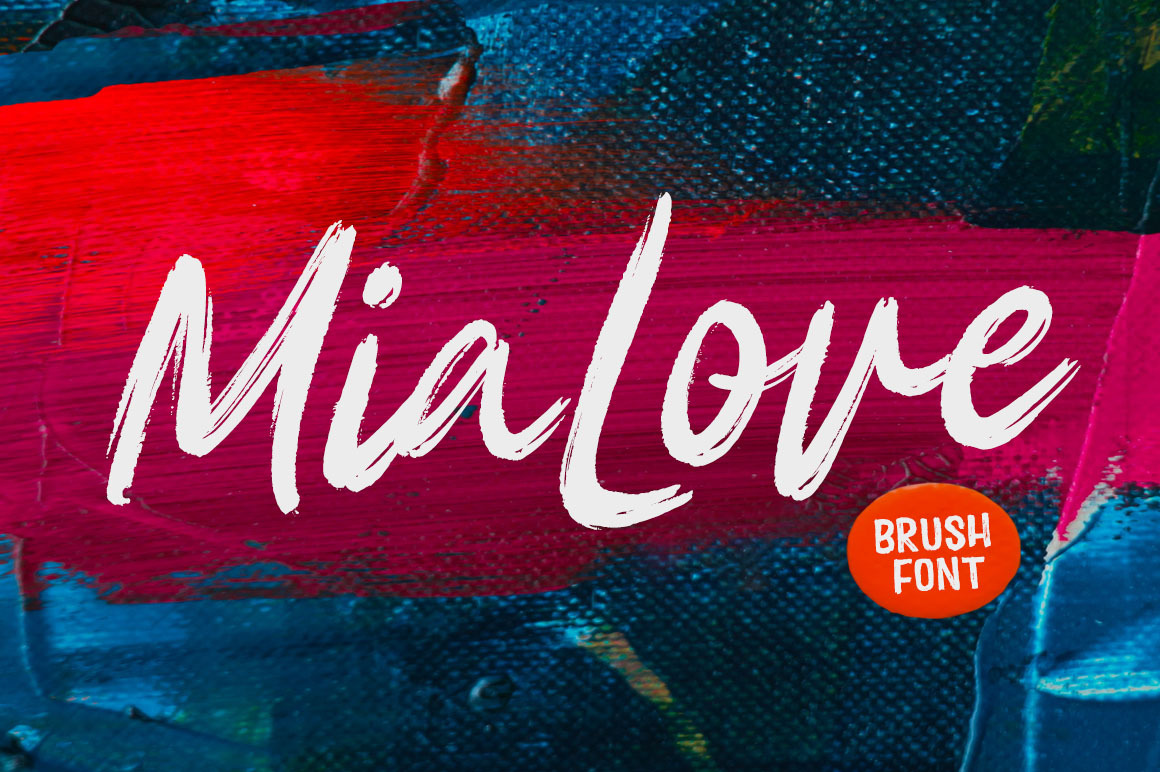
Mia Love Brush Font
Mia Love is a special brush font designed to look bold, with a perfect texture, suitable for today's designs Suitable for use in design titles such as invitations, signboards, book titles, stationery designs, quotes, branding, logos, greeting cards, packaging designs, posters, and more.